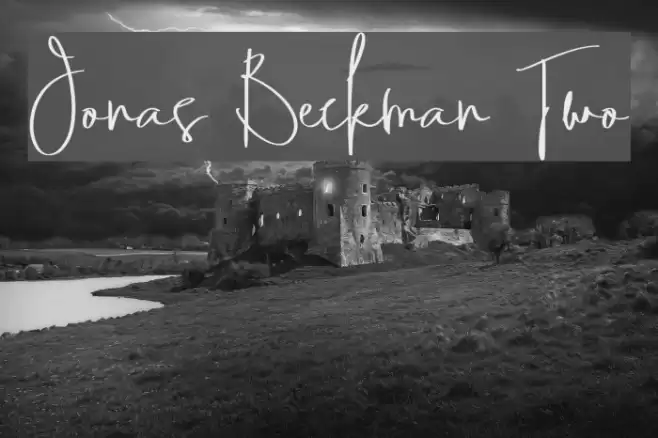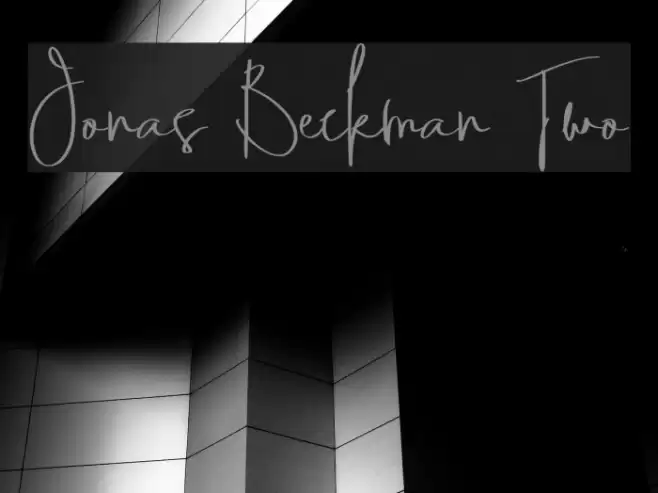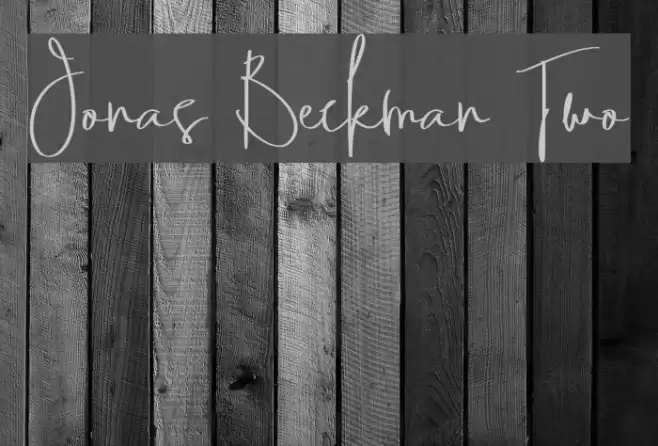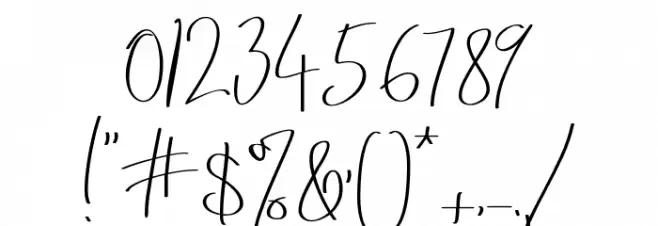
Jonas Beckman Two Font
Jonas Beckman Two Description
This font features a lively and expressive handwritten style, characterized by its flowing and interconnected letterforms. The strokes are thin and delicate, giving it an airy and elegant appearance. The uppercase letters are tall and slightly narrow, while the lowercase letters maintain a consistent flow with occasional loops and flourishes. Numbers and special characters follow the same fluid style, adding a cohesive look across all elements. The overall design is playful yet sophisticated, making it suitable for creative and artistic projects.
A lively, expressive handwritten font with flowing, interconnected letterforms from Uncategorized fonts.
- Proposed Projects: Ideal for wedding invitations, greeting cards, personal branding, and artistic projects that require a personal touch.
- Weight: Light
- Use Case: Logos, Invitations, Artistic projects